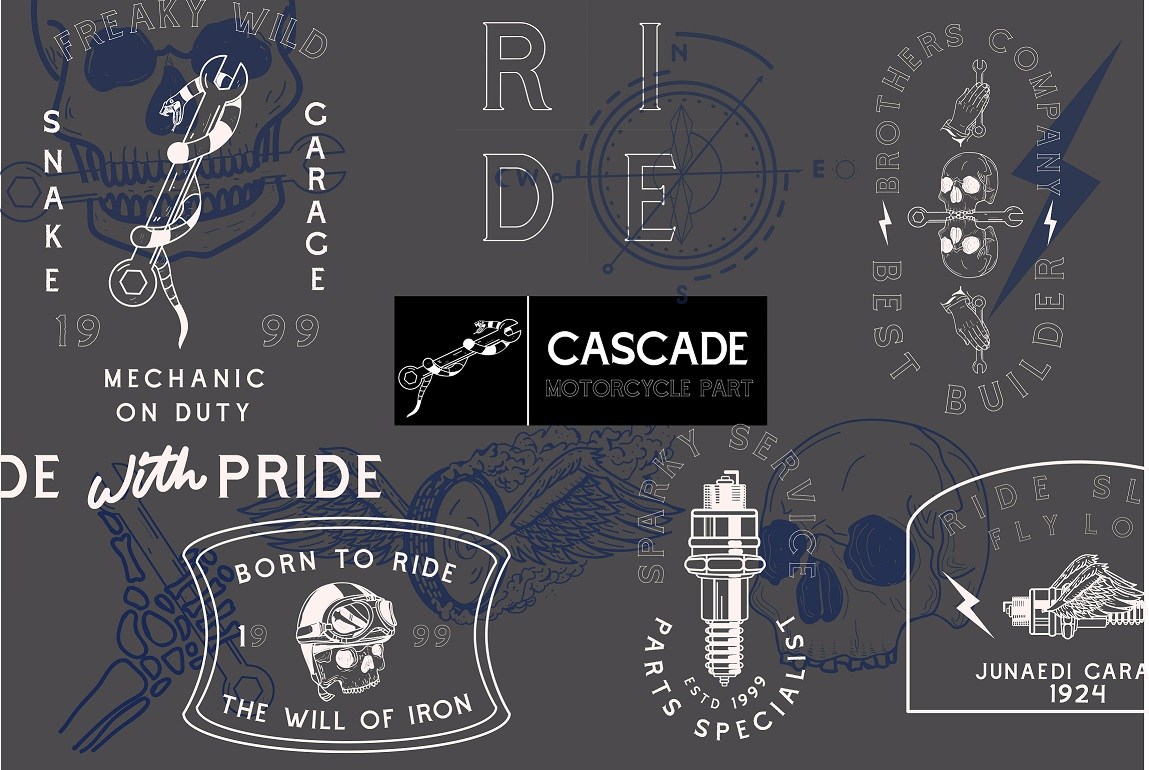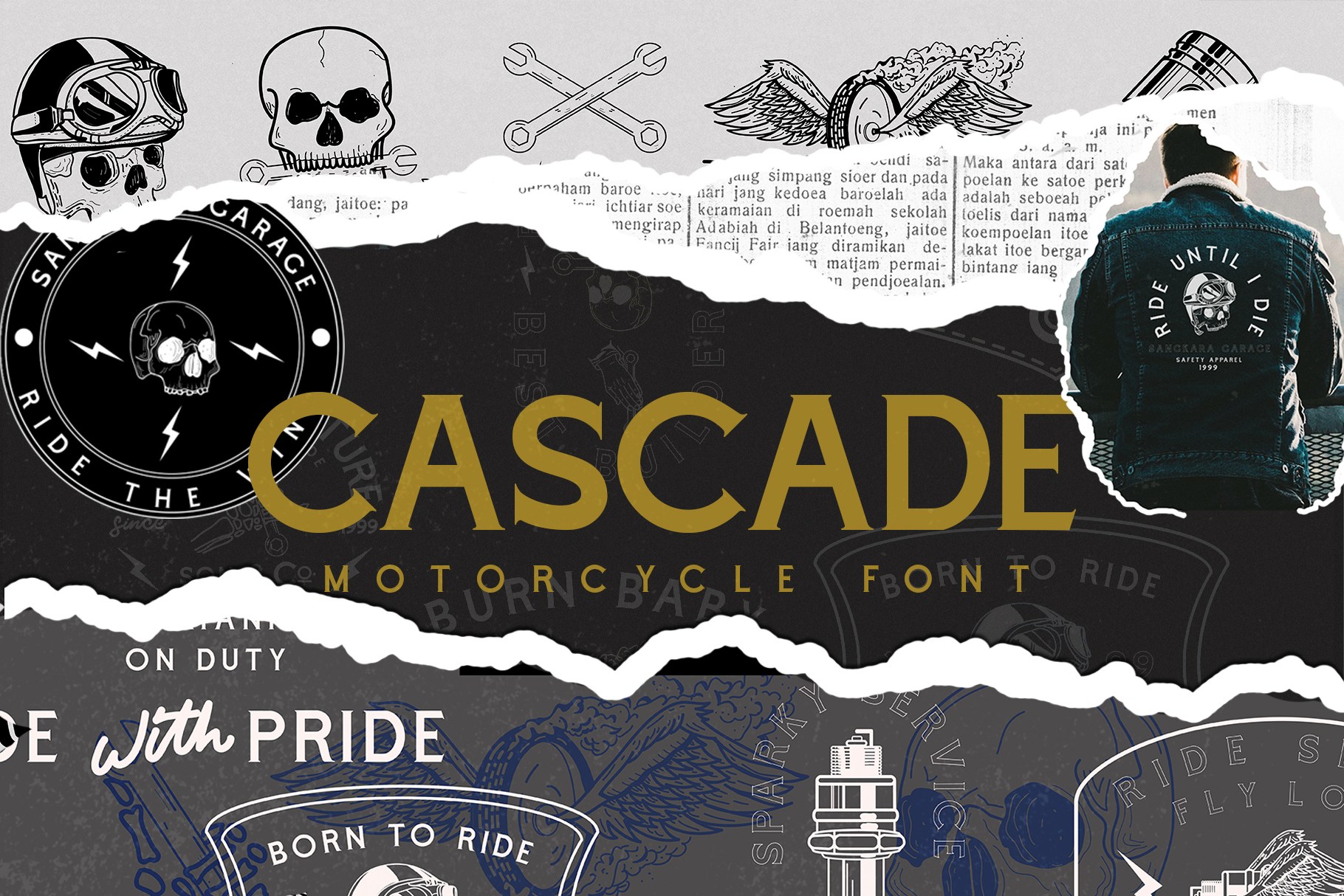
Cascade
Cascade Typeface
From the love of our heart about motorcycle, we decided to created this font with full joy and make it comes to the real world now let us introduce our new font called ” CASCADE ”
Cascade
This font Calling all motorcycle entushiast.